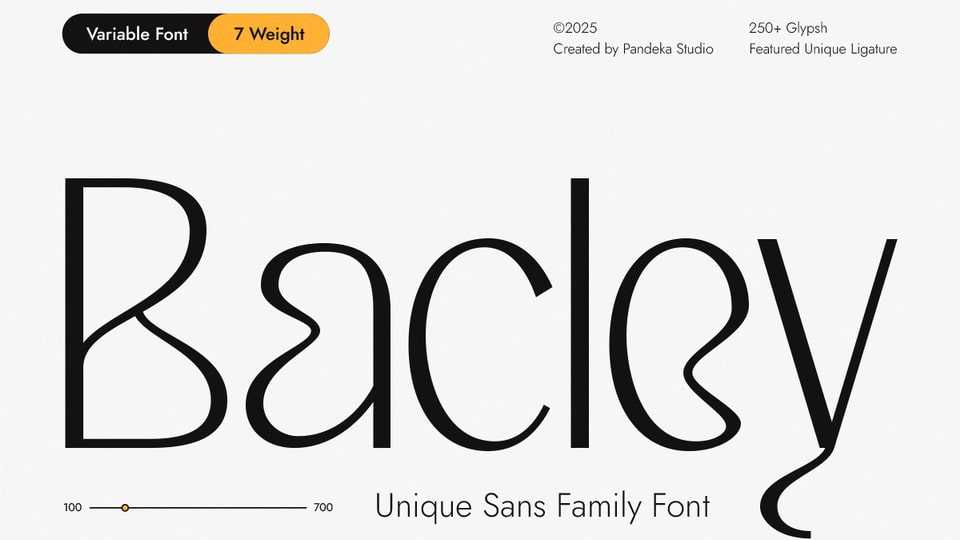
Download Bacley font, a modern sans-serif typeface that fuses minimalist structure with experimental style. Featuring 7 font styles, it offers versatile solutions for both display and text applications.